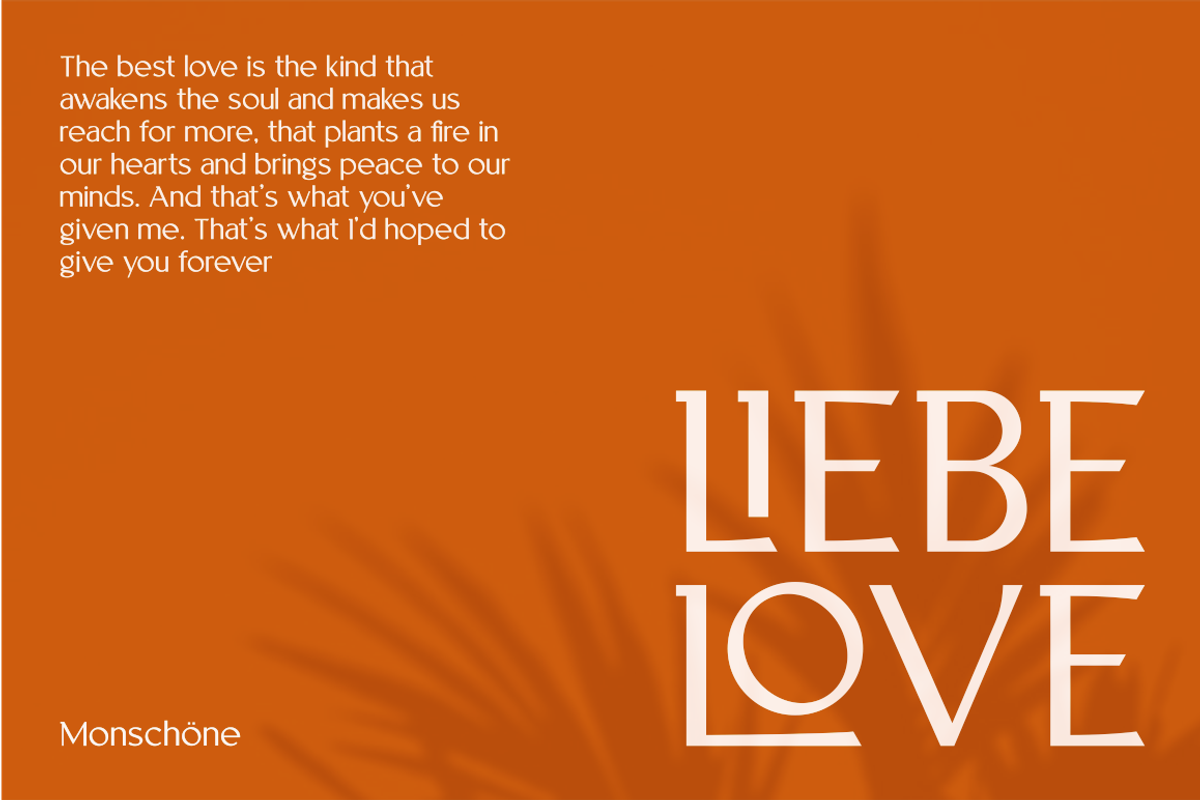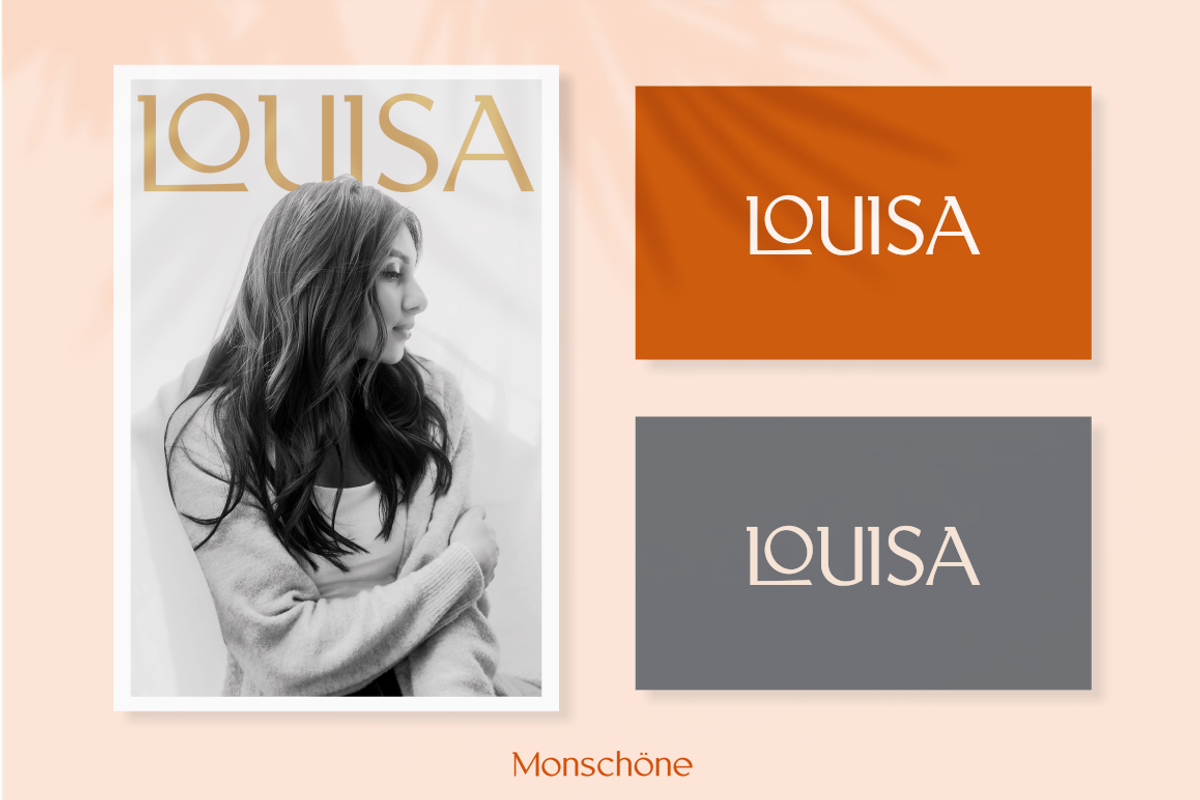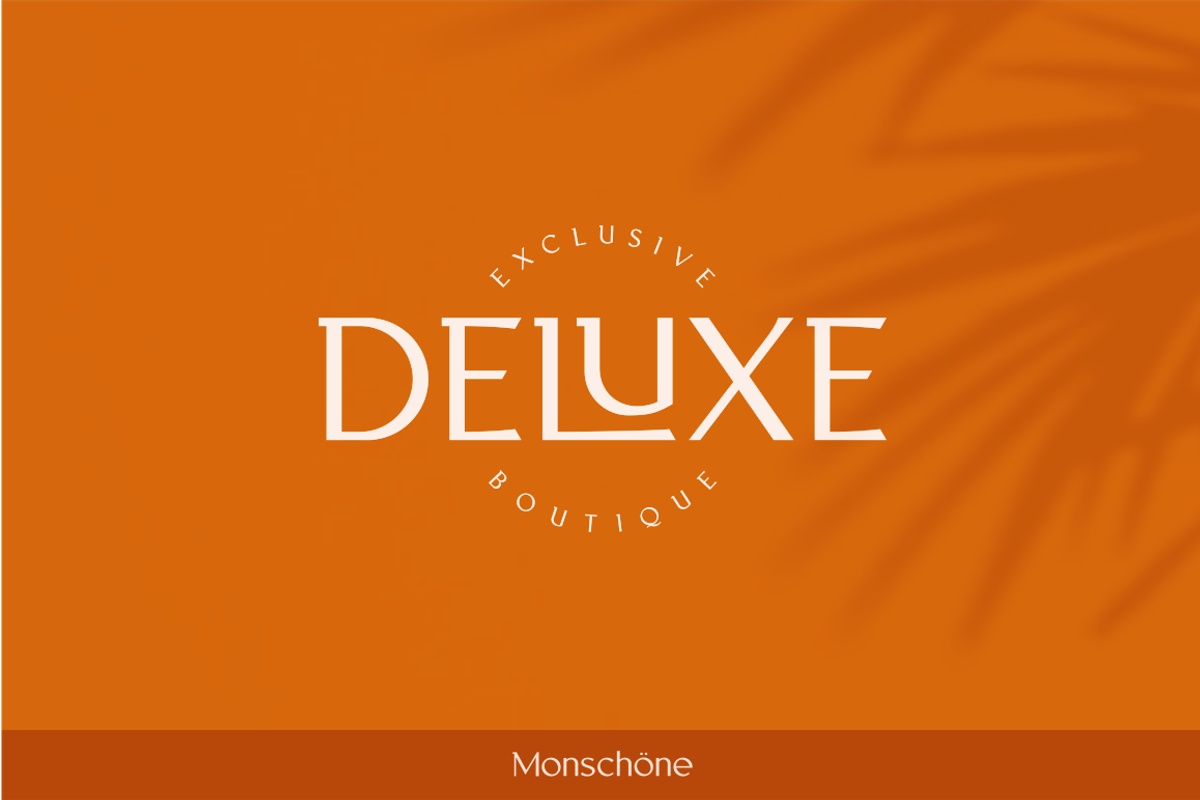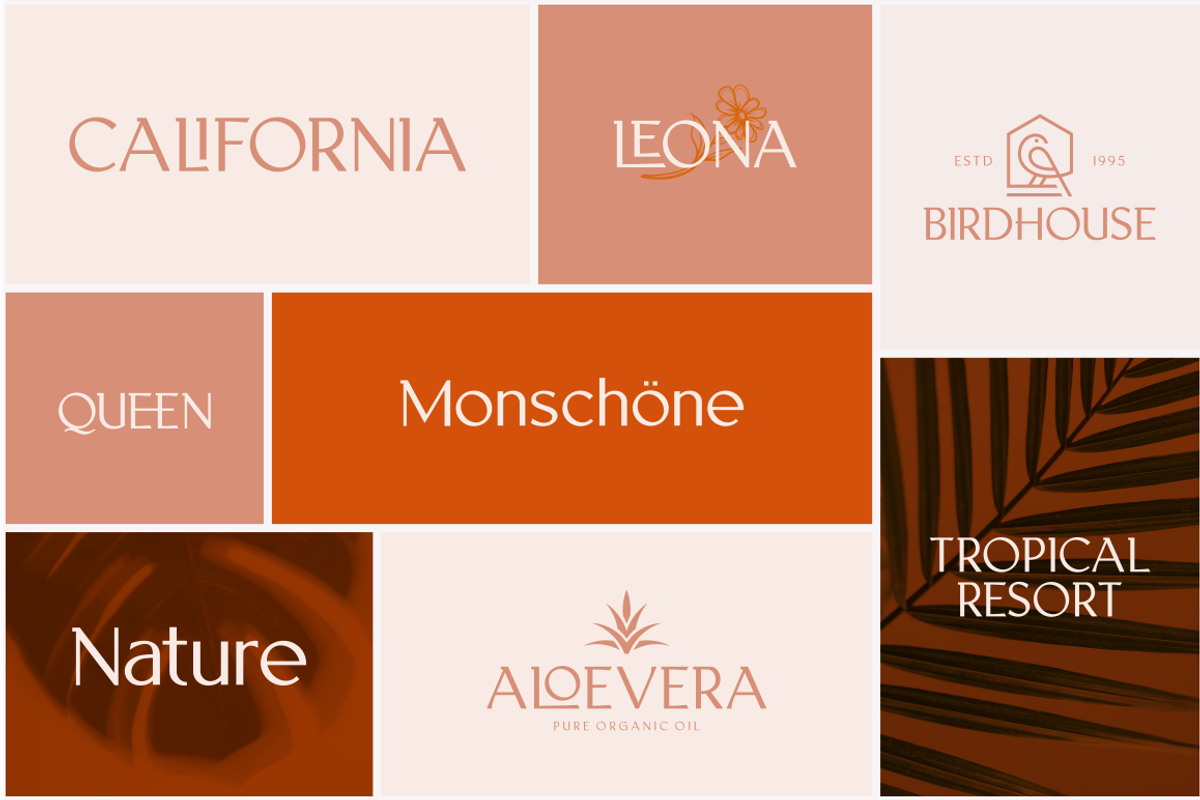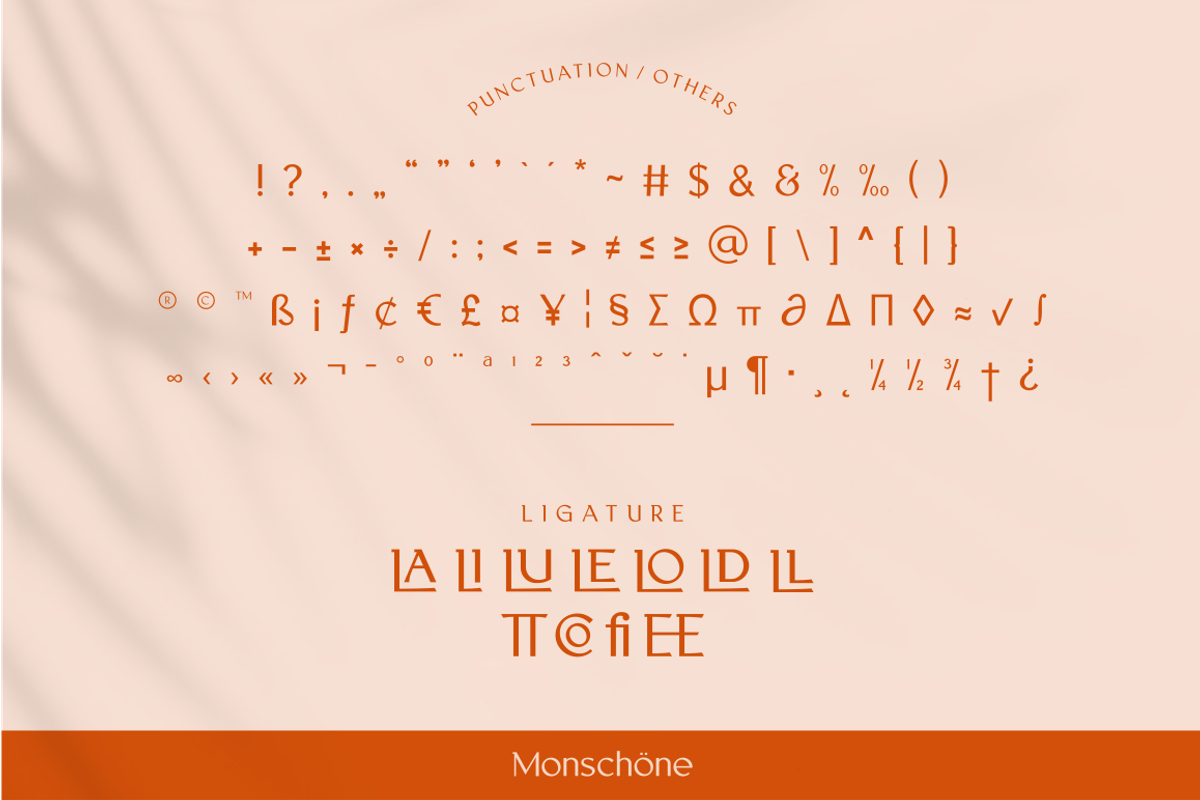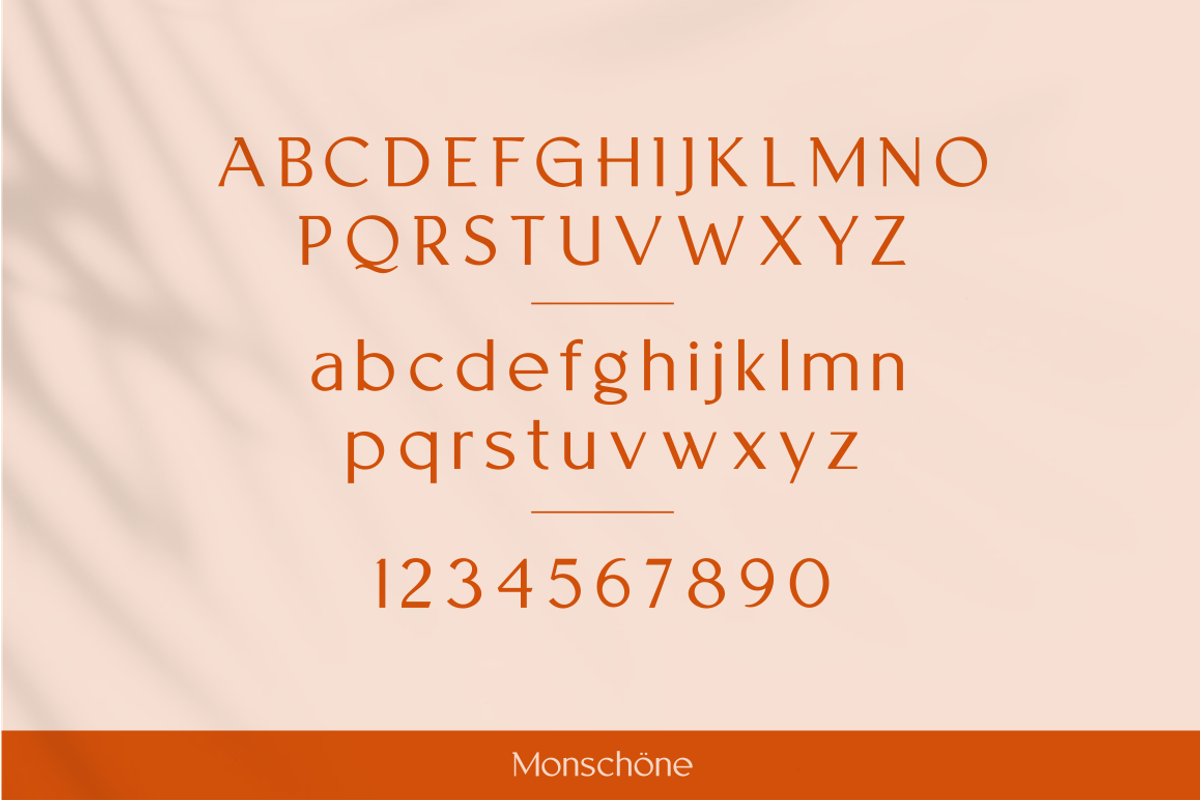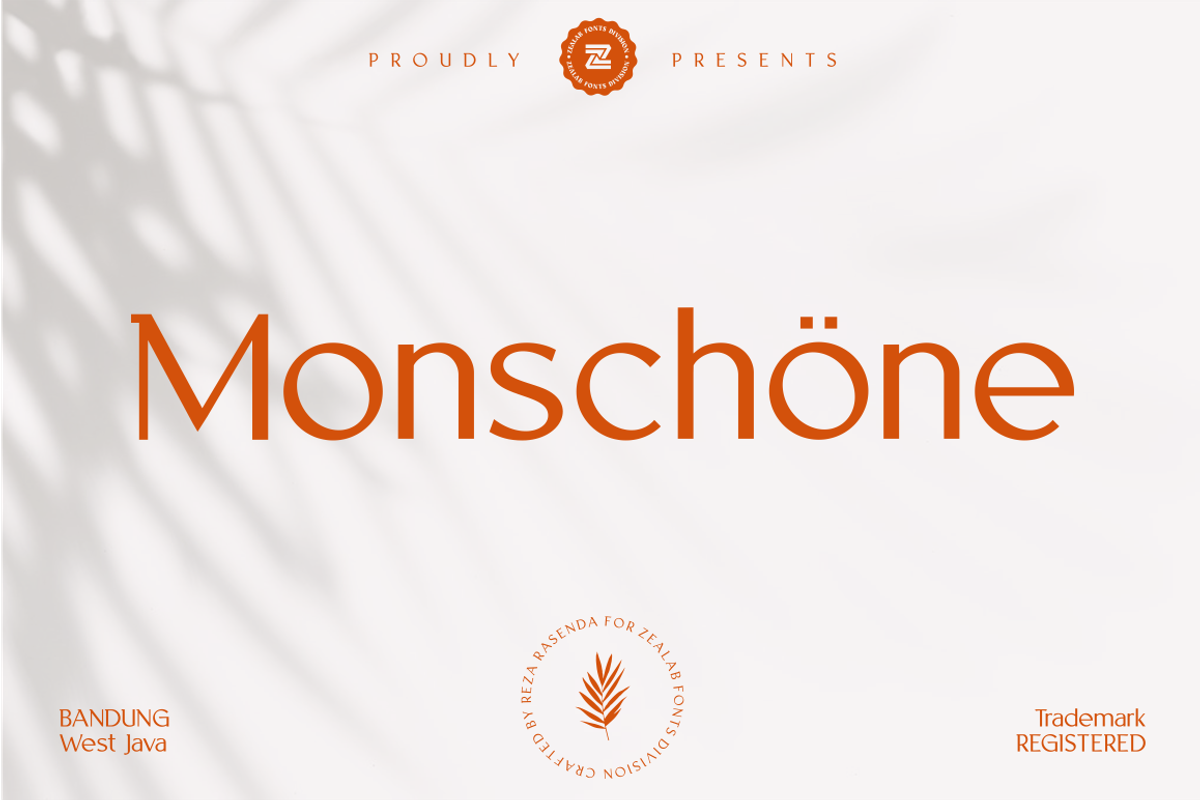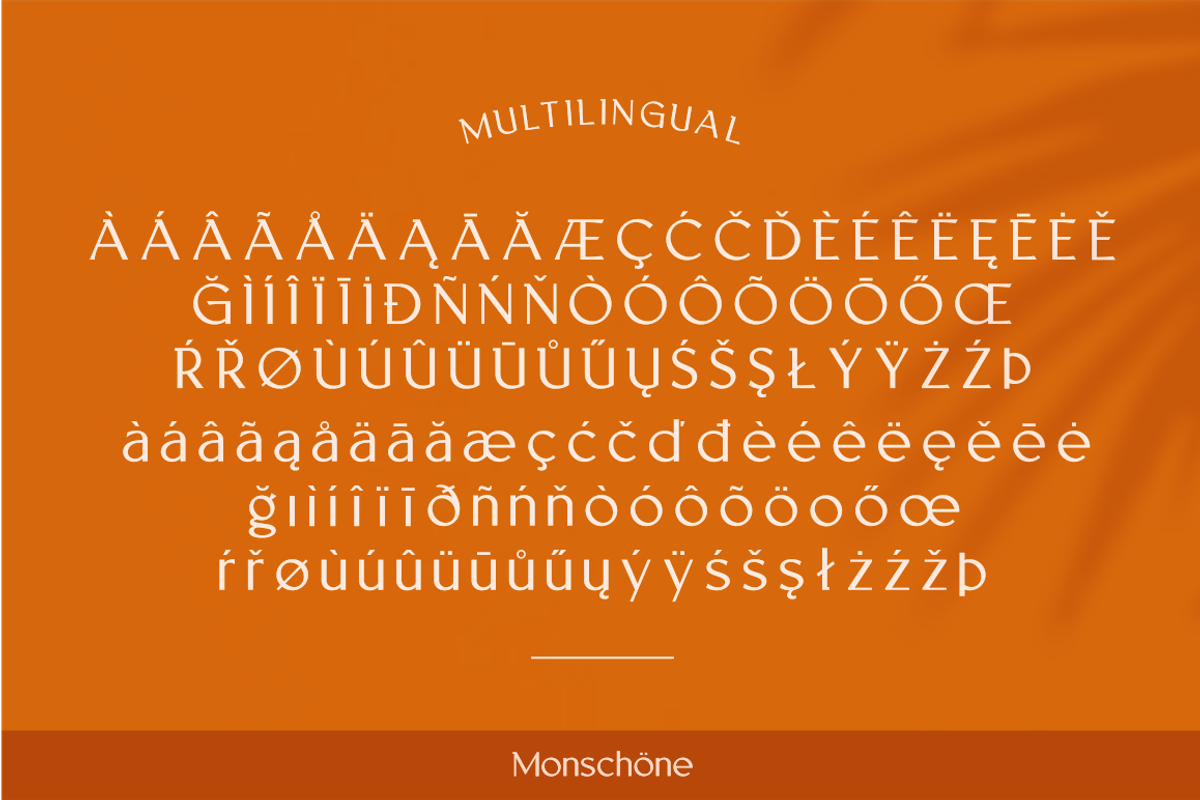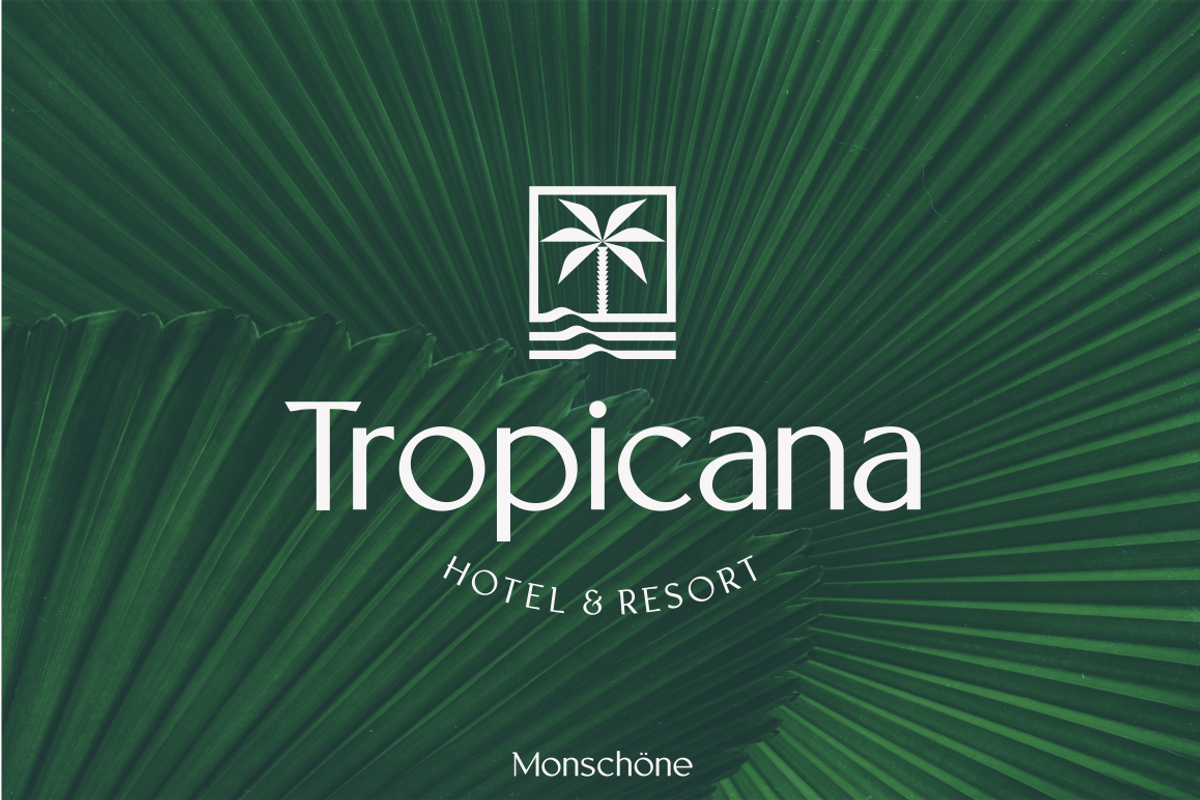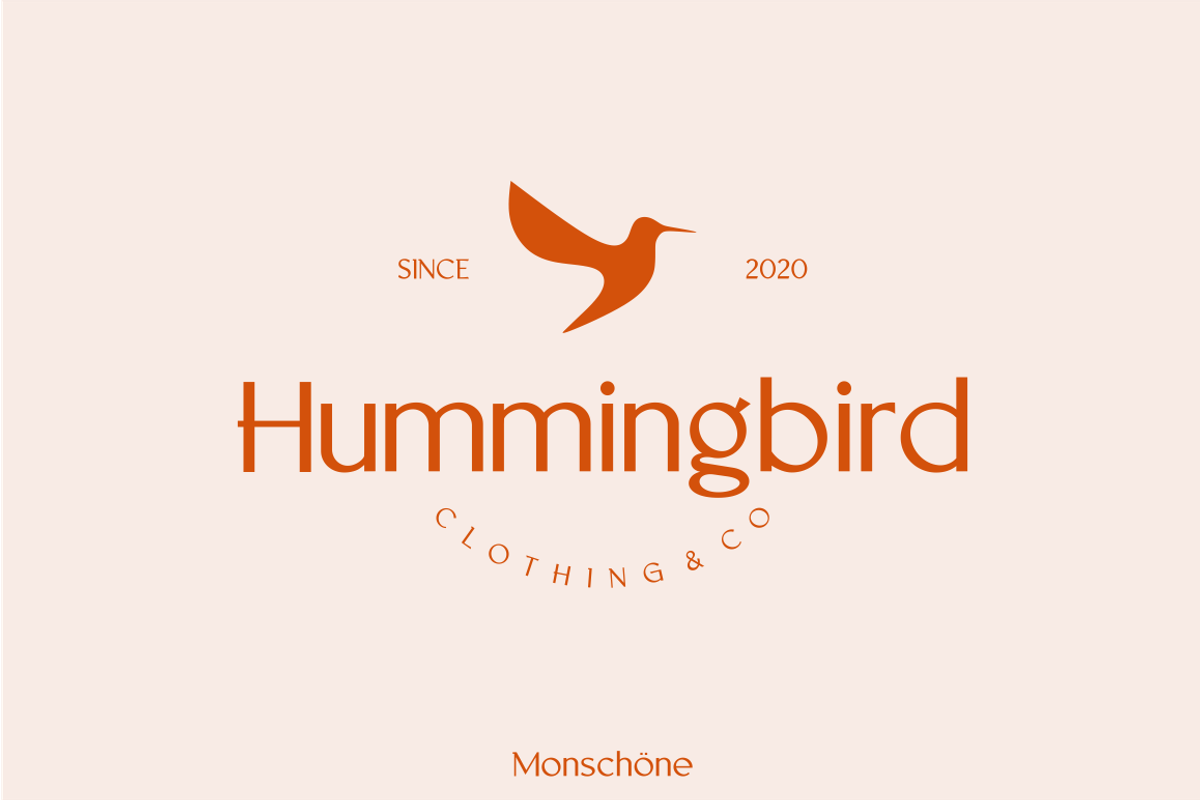
MONSCHONE
Monshcone is a minimalist luxury and gorgeous font that is both classically elegant and inherently modern. Create unique word mark logo, beautiful wedding invitations, use it as an elegant solution for your next magazine layout, or choose Fiona for any graphics that require a sleek look with a elegant flair. Monschone Font features an unique typeface stylistic set which when use to some of the Uppercase, lowercase characters and multilingual as well.